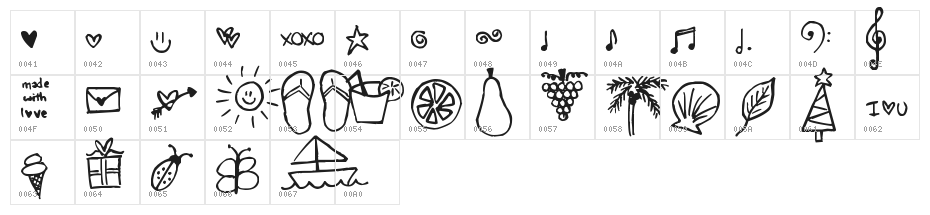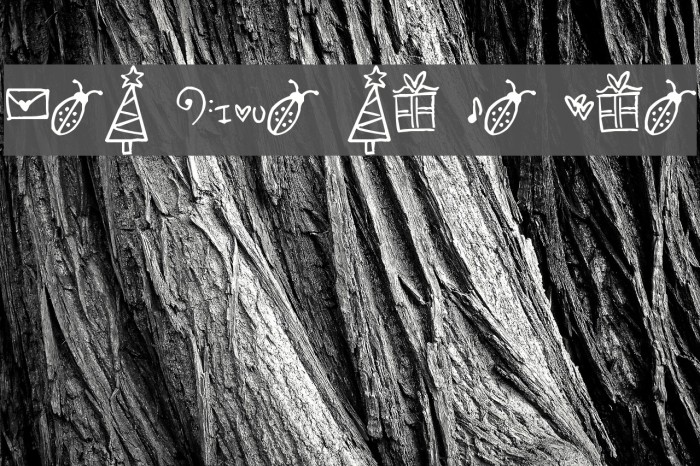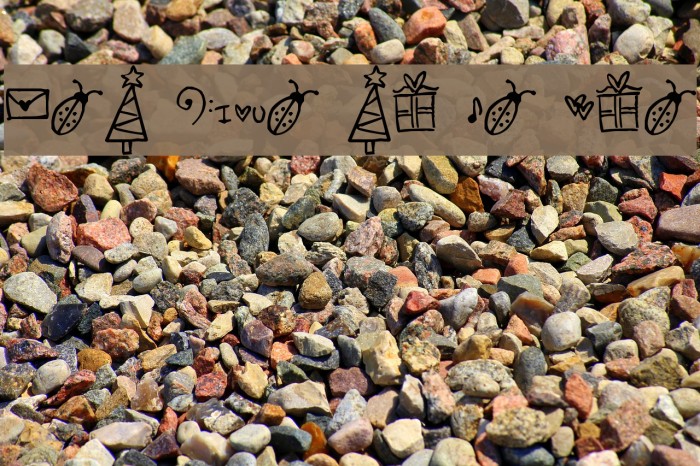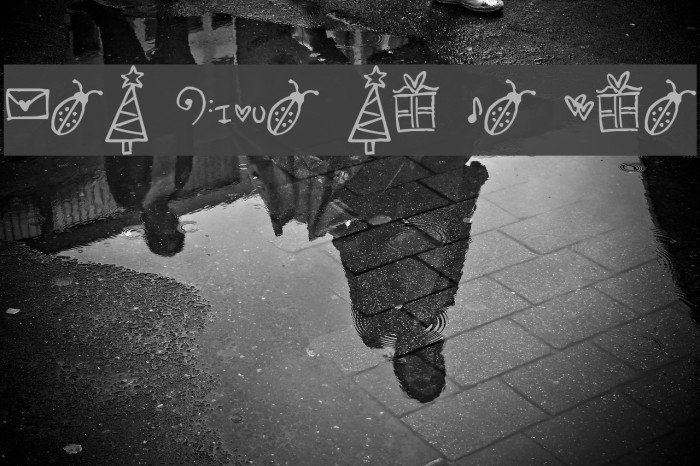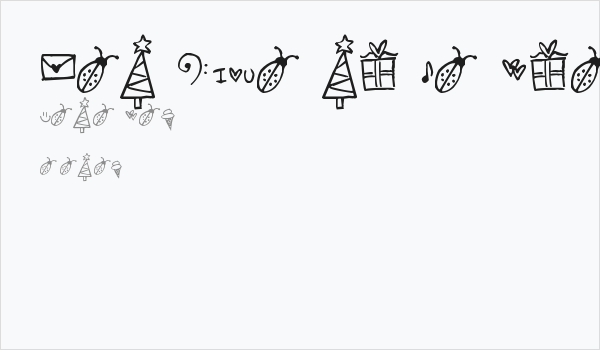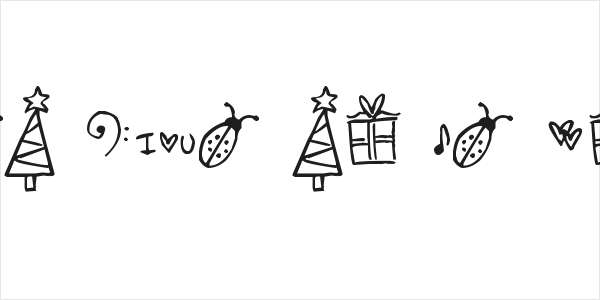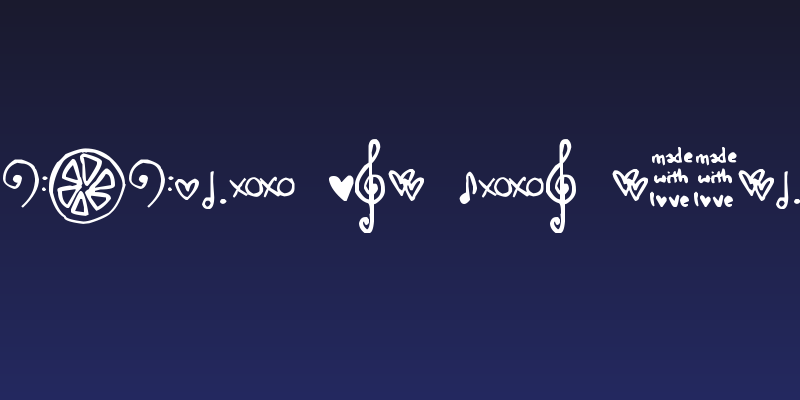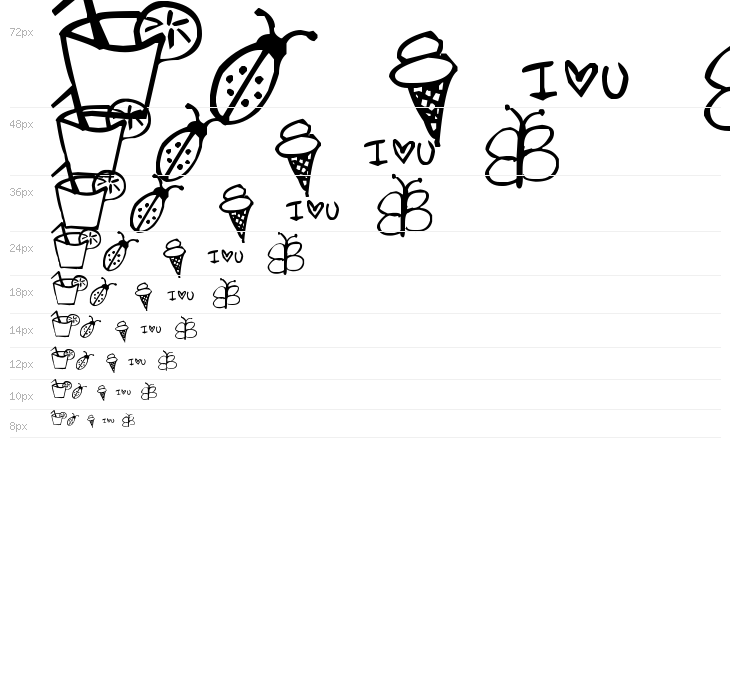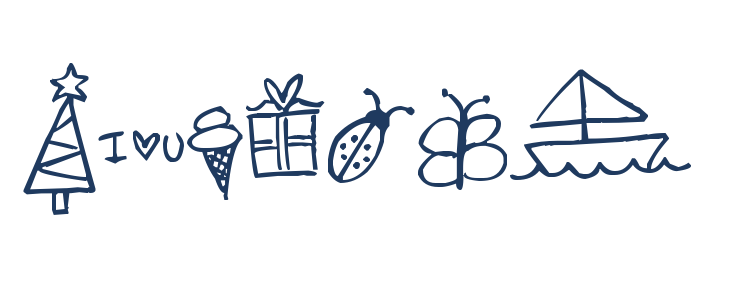
Pea Mumble and Jen Doodles Font
Pea Mumble and Jen Doodles Description
This collection features a playful and whimsical set of doodles, each with a hand-drawn, casual style. The designs include a variety of symbols such as hearts, smiley faces, stars, musical notes, and more. Each element is crafted with a sense of fun and spontaneity, making them perfect for informal and creative projects. The strokes are bold and uneven, adding to the charm and uniqueness of each doodle. These elements are ideal for adding a personal touch to projects, evoking a sense of joy and creativity.
| Overall Style | Whimsical, Playful |
| Use Case | Decorative elements, Creative projects |
| Proposed Projects | Ideal for scrapbooking, greeting cards, children's projects, and playful branding. |